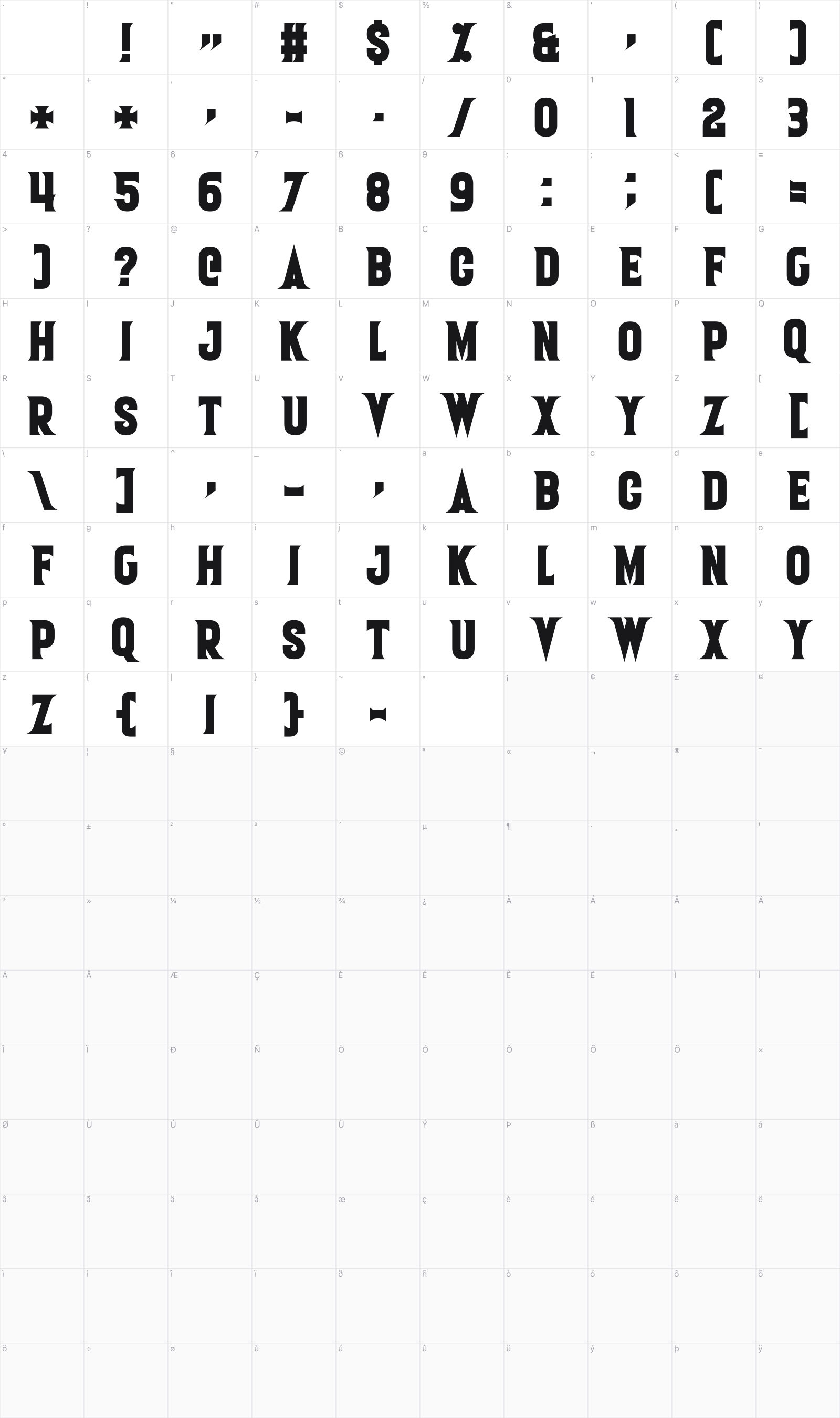
One Slice
One Slice is a bold, condensed stencil face from Chequered Ink with heavy uppercase letterforms and clean stencil breaks that keep things punchy and direct. The tight proportions and strong vertical emphasis give it a poster-ready presence, built for headlines, signage, and display work where you need big type that reads fast and hits hard.